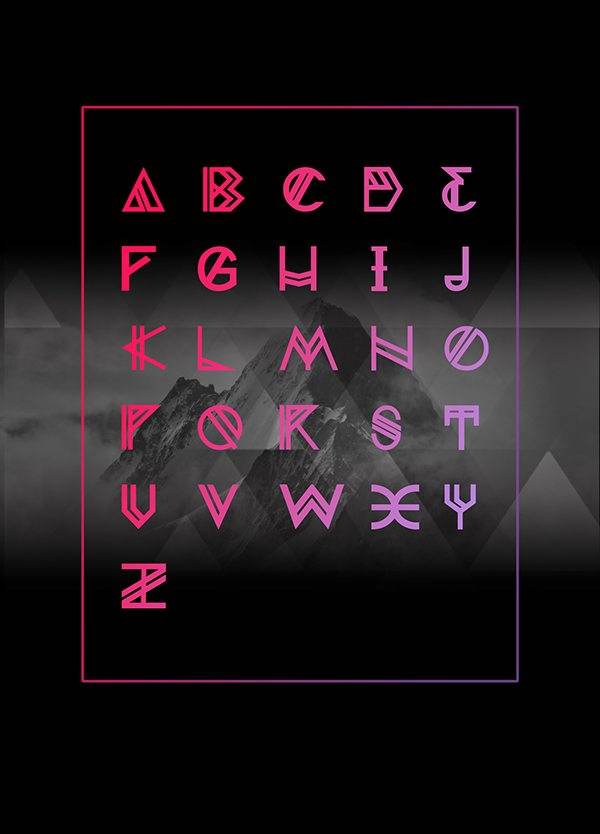
Free Font Of The Day #130 – Nordic Font
Nordic Font
The Font is an experimental free font, that was created, inspired by Norwegian runes. The latest version consists of the uppercase alphabet, numerals, and basic punctuation. Designed by Yana Bereziner.